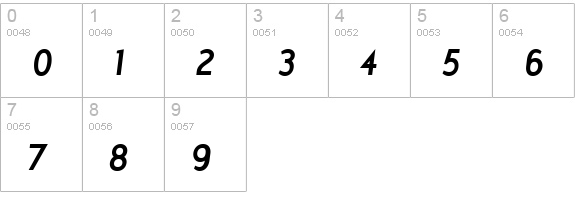
Mercury Bold Italic Font Details
Mercury Bold Italic is a strong, high-contrast, italic variant in the Mercury typeface family \xE2\x80\x94 well suited to headlines, attention-grabbing titles, and strong calls-to-action.
Mercury Bold Italic font is a striking and versatile typeface that exudes a sense of modernity and sophistication. Its bold yet elegant italic style adds a touch of flair to any design project, making it perfect for headlines, posters, and branding materials. The sleek and stylish curves of this font make it a standout choice for those looking to make a statement with their typography. What's even better is that Mercury Bold Italic font is available for free download at FontsMarket.com. This means you can easily access this high-quality font without any cost, making it a valuable addition to your font collection. Whether you're a designer looking to elevate your projects or a hobbyist seeking to enhance your creative endeavors, Mercury Bold Italic font is a must-have resource that offers both style and accessibility. Download it today and see the difference it can make in your designs!